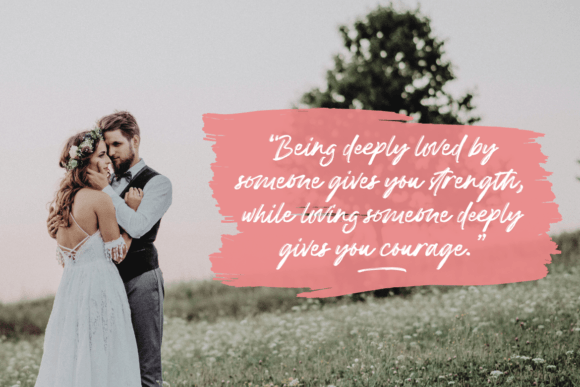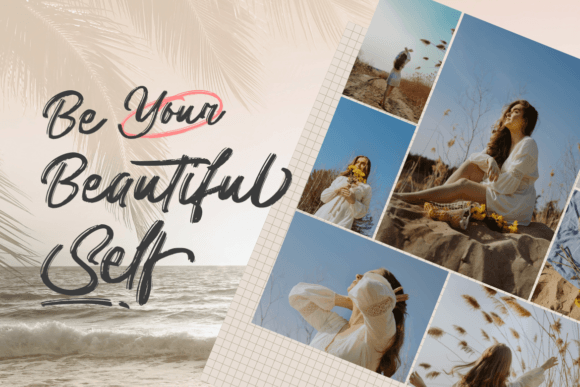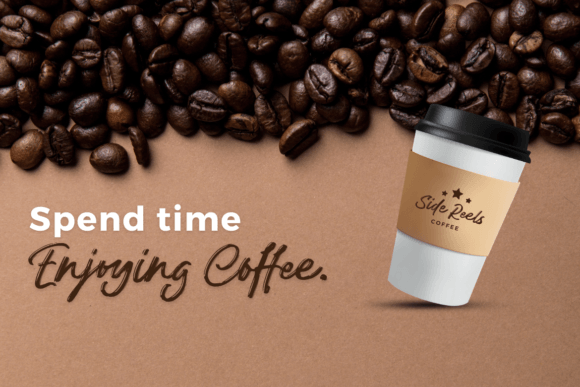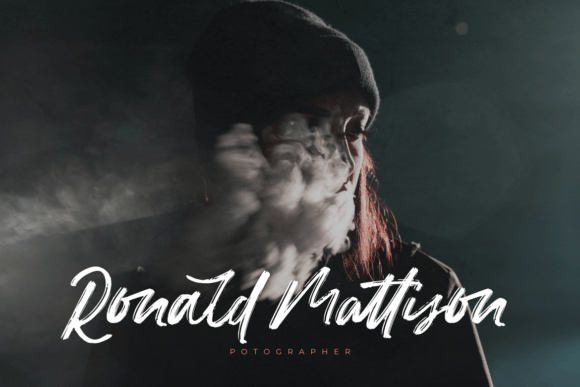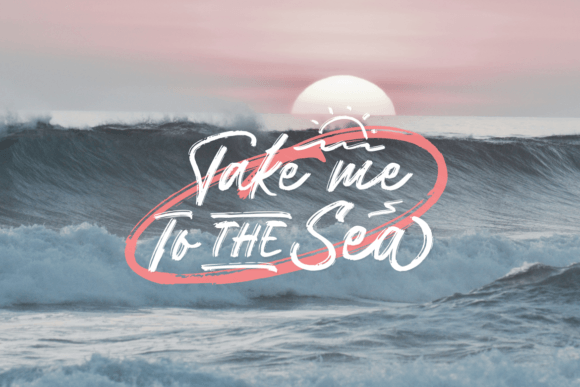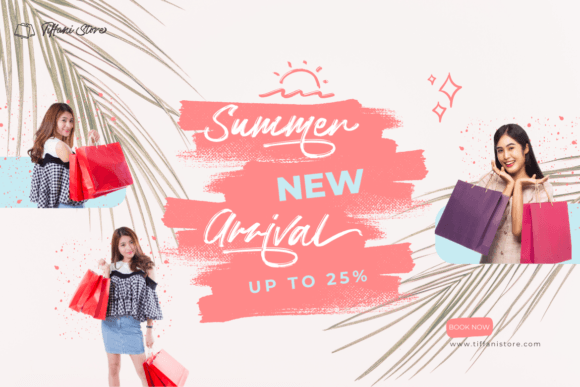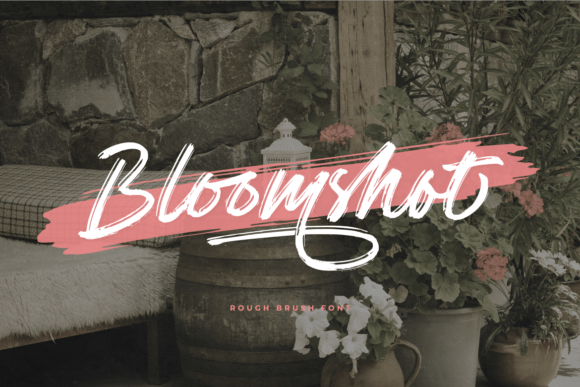
Unlock the Beauty of Bloomshot Font
Remember the moment when a single font choice completely transformed your design project? The spark of creativity that ignited when you stumbled upon the perfect combination of style and functionality? That’s exactly what the Bloomshot Font aims to provide – an artistic touch that elevates your projects to the next level.
With its unique and dynamic rough brush design, the Bloomshot Font is perfect for logo design, wedding invitations, branding, and packaging. Its distinctive visual appeal makes it a valuable asset for designers who crave something fresh and exciting. Whether you’re working on a magazine, quote, or overlay for images, this font is sure to add a touch of sophistication and creativity to your work.
By incorporating the Bloomshot Font into your design, you’ll be able to create stunning visual effects that capture the attention of your audience. Its OpenType capabilities also allow for ligatures and swash, making it a versatile and dynamic font that’s sure to impress.
- Unique Characteristics: Bloomshot Font features a unique, hand-drawn design with intricate details and subtle texture, giving it a distinctive and eye-catching appearance.
Bloomshot Font Review
Overall, I’m quite impressed with Bloomshot Font. Here are some aspects where it truly shines: ✨
- Unique and modern aesthetic: Bloomshot Font boasts an eye-catching design that’s sure to grab attention. Its unique curves and lines make it perfect for branding and creative projects.
- Highly legible: Despite its bold and intricate design, Bloomshot Font remains highly legible, making it suitable for body text as well as headings.
- No italic or bold weights: The font only comes in a regular weight, which may limit its use in certain contexts where italic or bold text is necessary.
Overall, I think Bloomshot Font is a great addition to any designer’s toolkit. Its unique design and high legibility make it perfect for creative projects, and its good character set makes it versatile for international work. However, the limited language support and lack of italic or bold weights are drawbacks to consider.
The Bloomshot Font is a unique, hand-drawn font designed for creative and eye-catching typography. To use it, follow these steps:
To get the most out of the Bloomshot Font, use it sparingly to create visual interest and emphasis.
Pair the font with bold or italic text to create a striking contrast.
Experiment with different font sizes and colors to add depth and dimension to your design.
The Bloomshot Font is perfect for:
Food and beverage branding
Children’s book illustrations and design